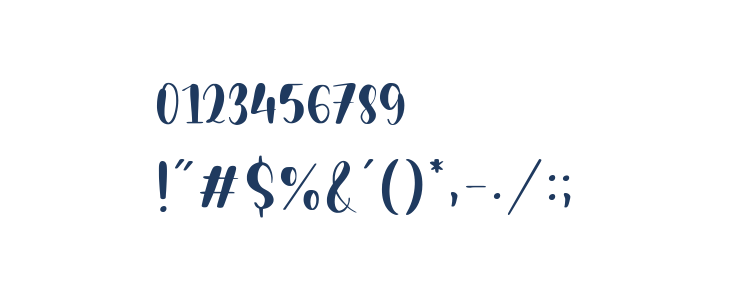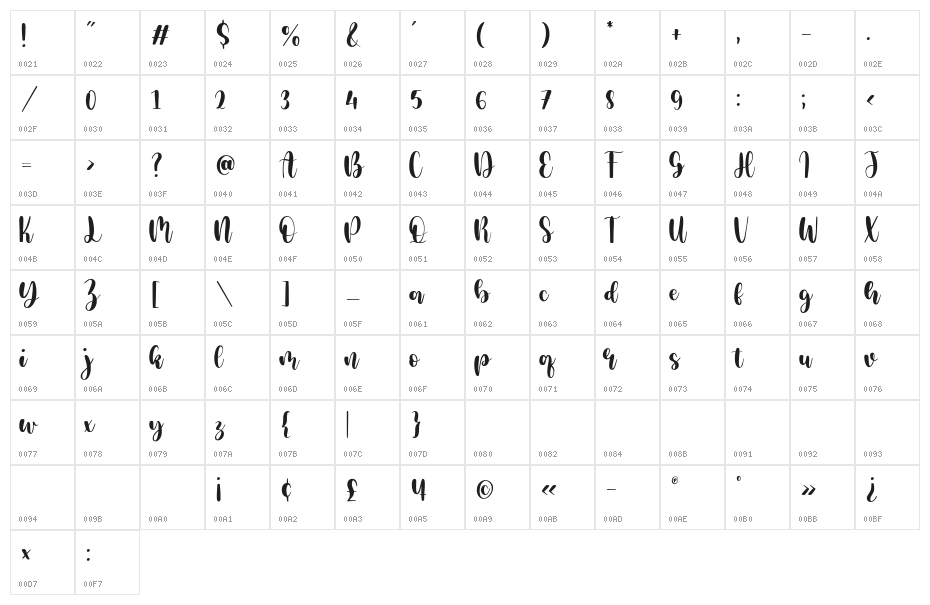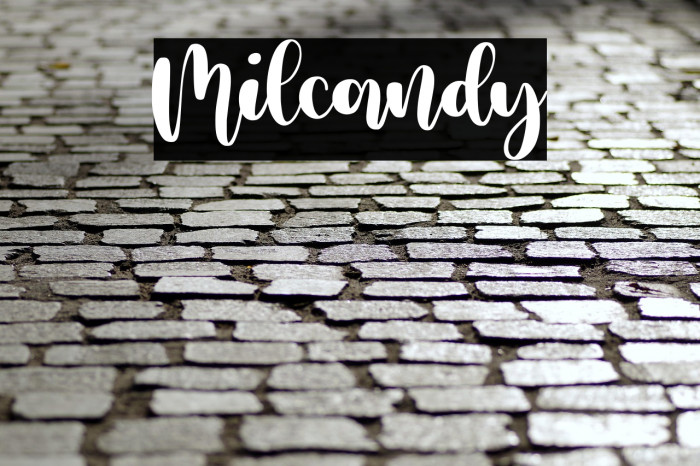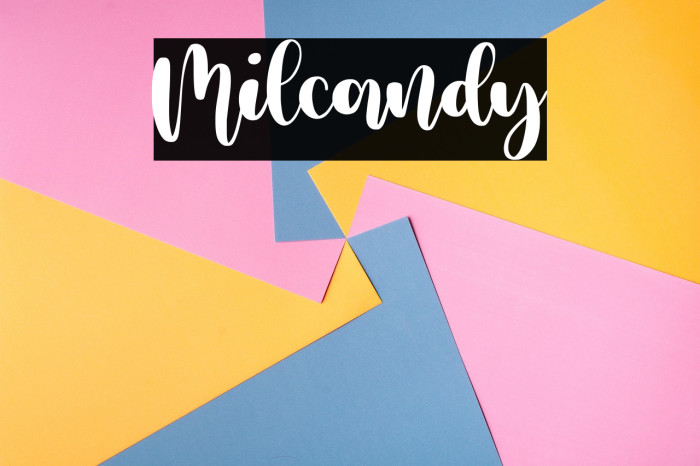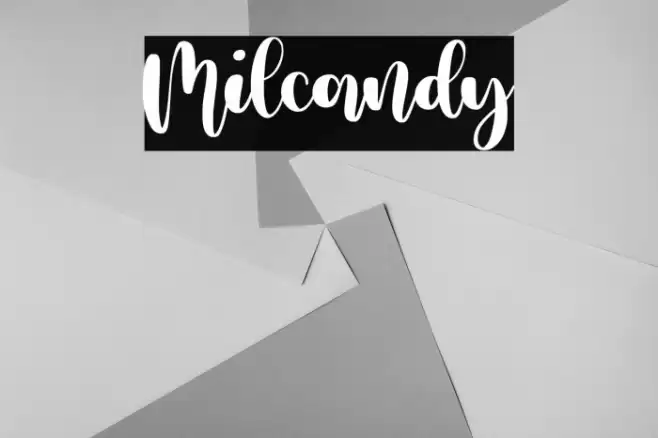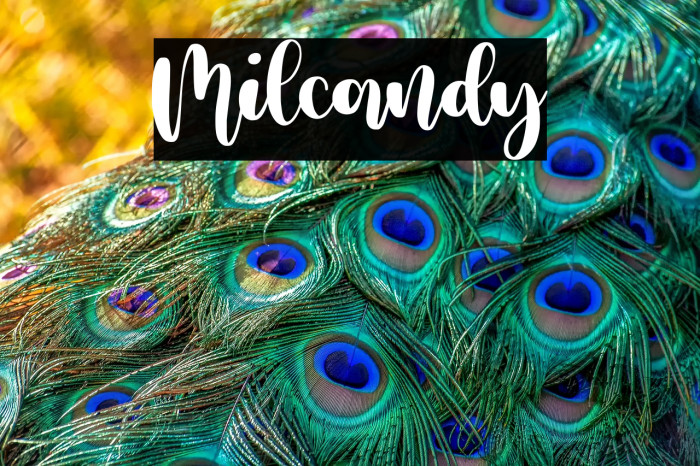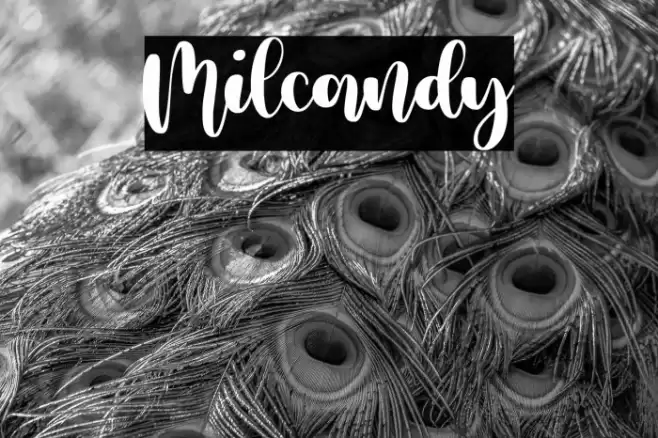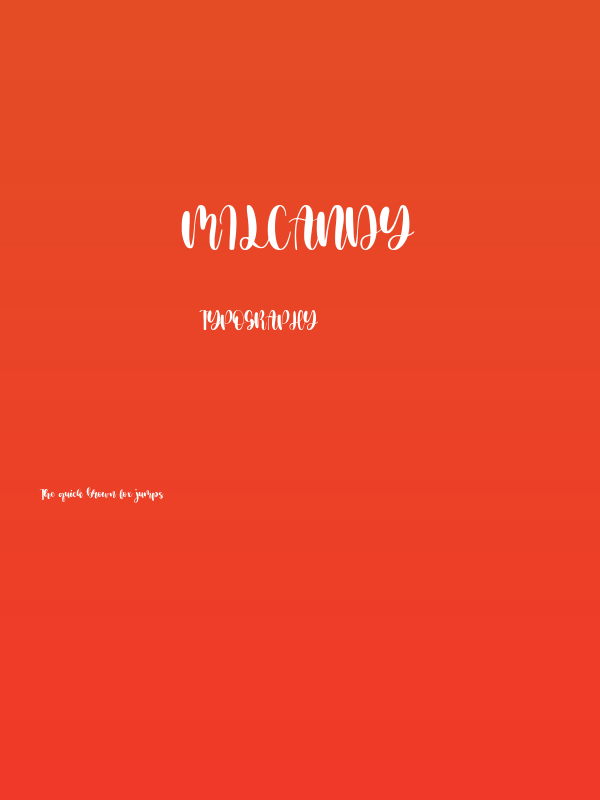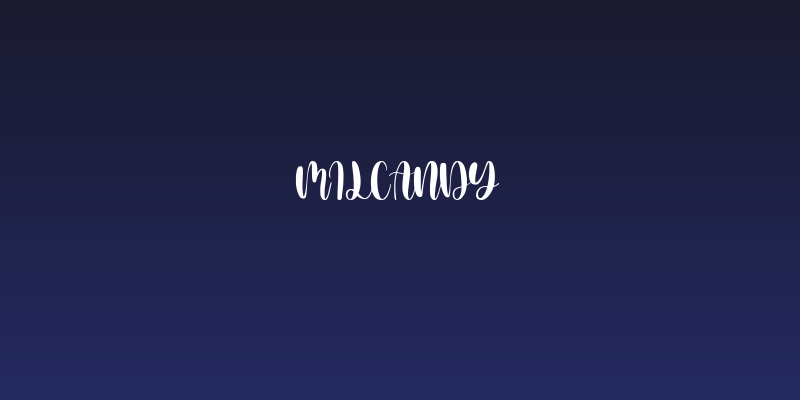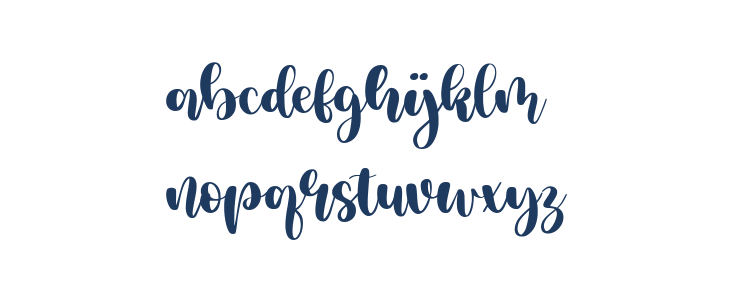
Milcandy Font
Milcandy Description
This font features a playful and elegant script style with a flowing, handwritten appearance. The characters are connected with smooth, sweeping curves, giving it a lively and dynamic feel. The uppercase letters are bold and prominent, while the lowercase letters maintain a consistent flow, enhancing readability. The numbers and special characters are designed to match the overall aesthetic, ensuring a cohesive look across all text elements. This font is perfect for adding a personal touch to any design project.